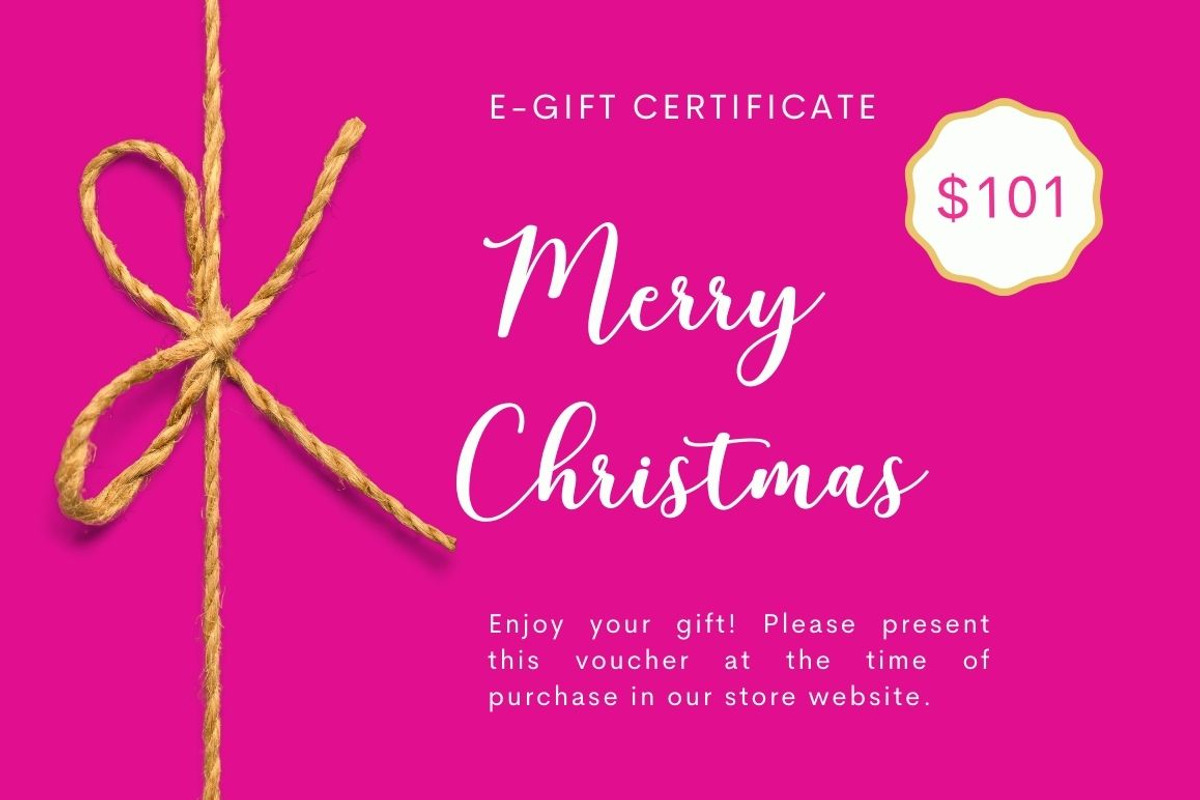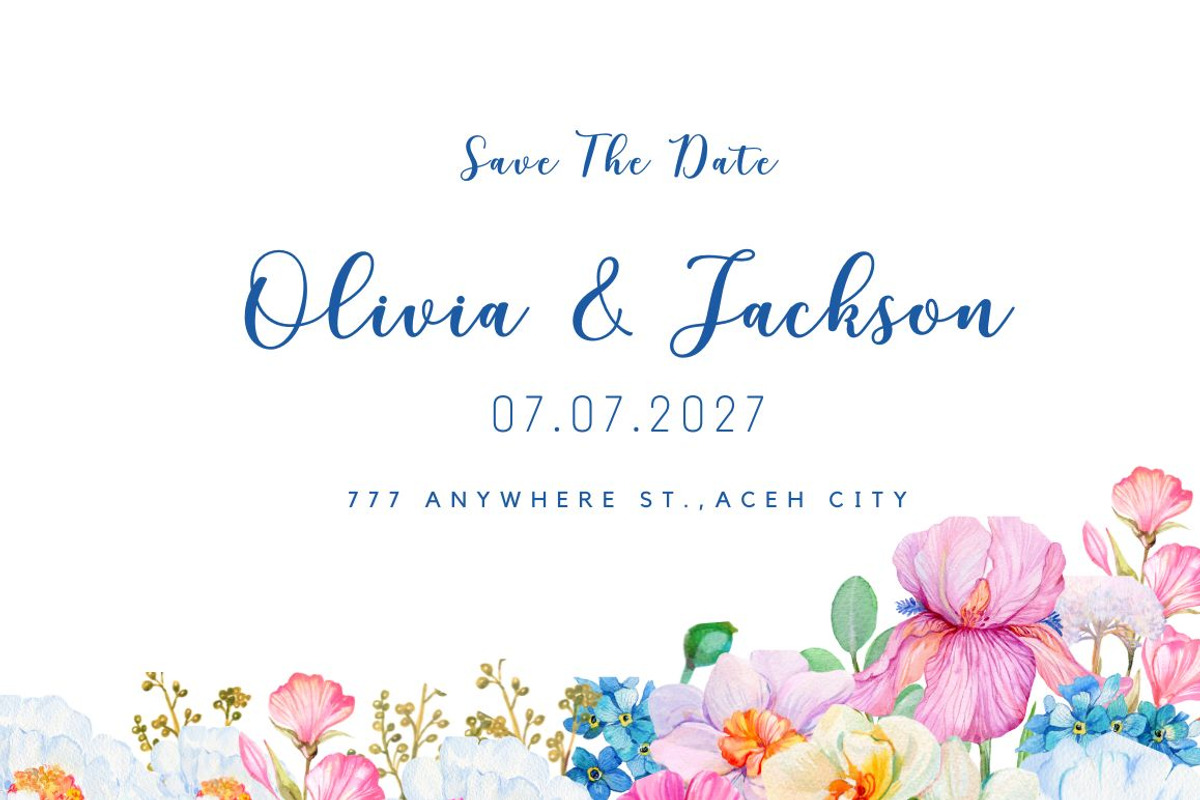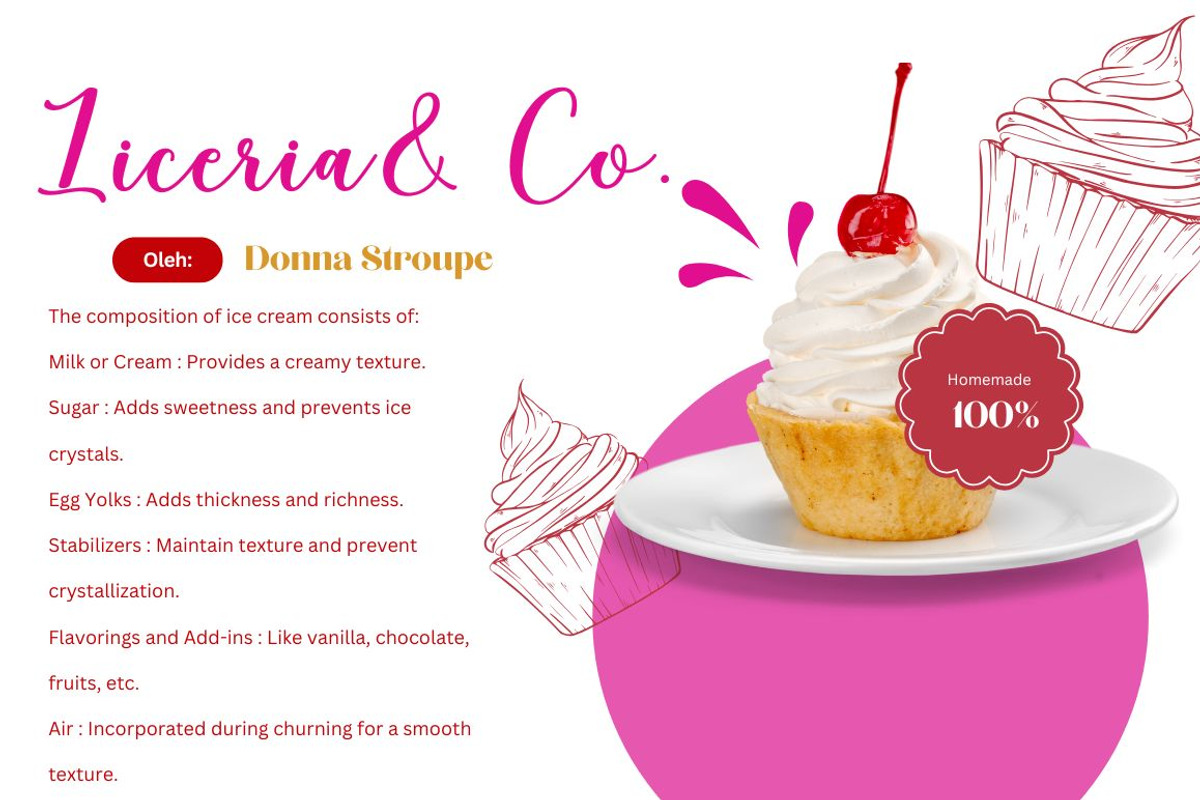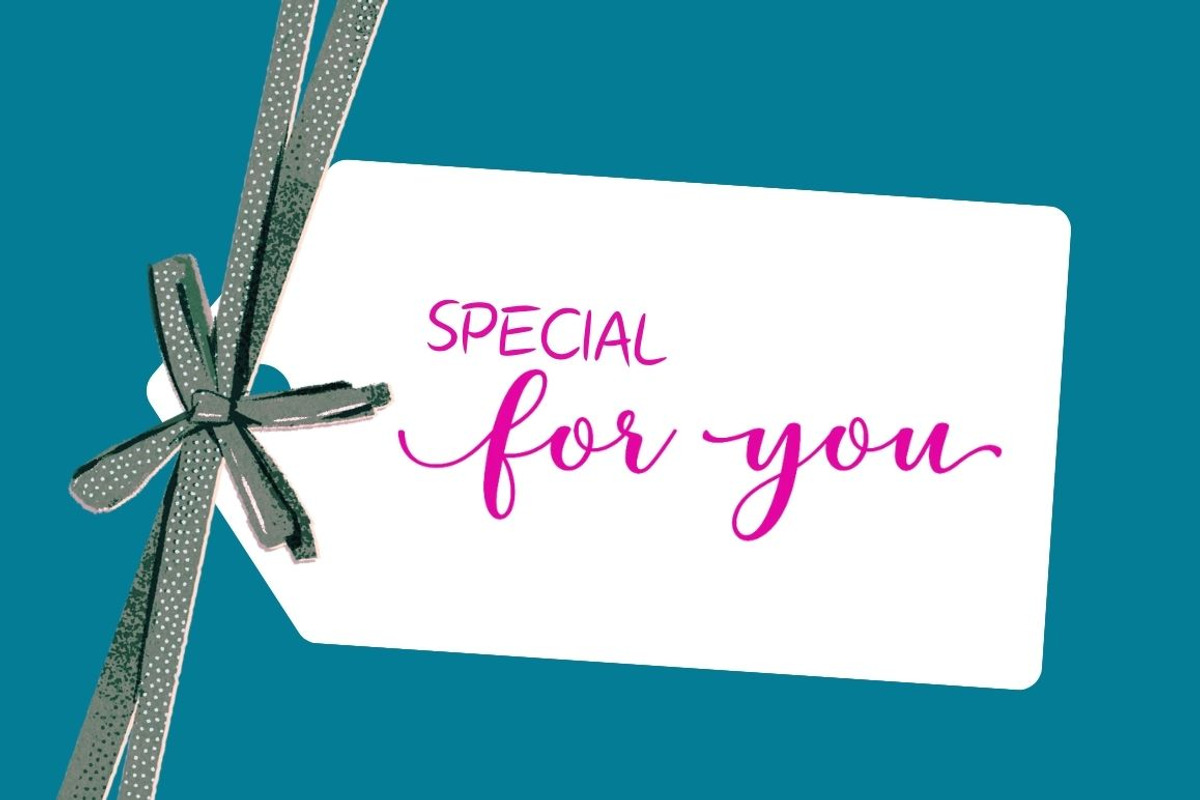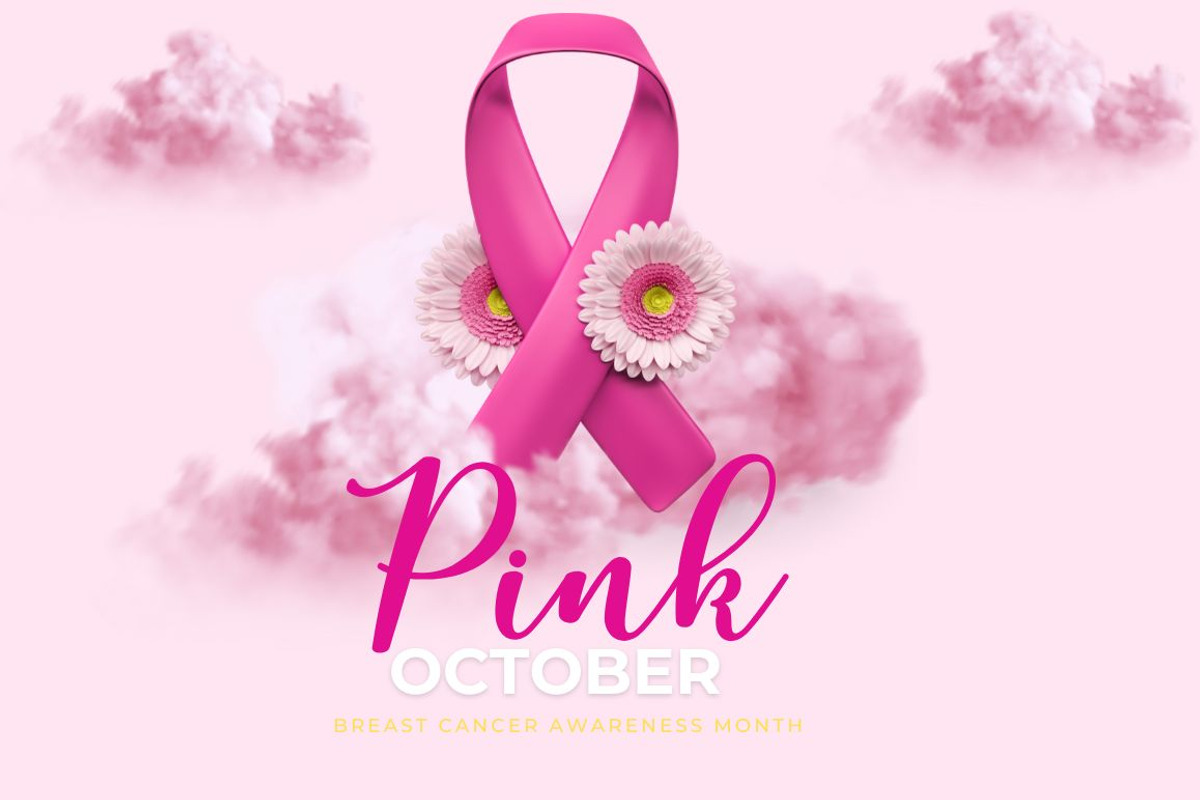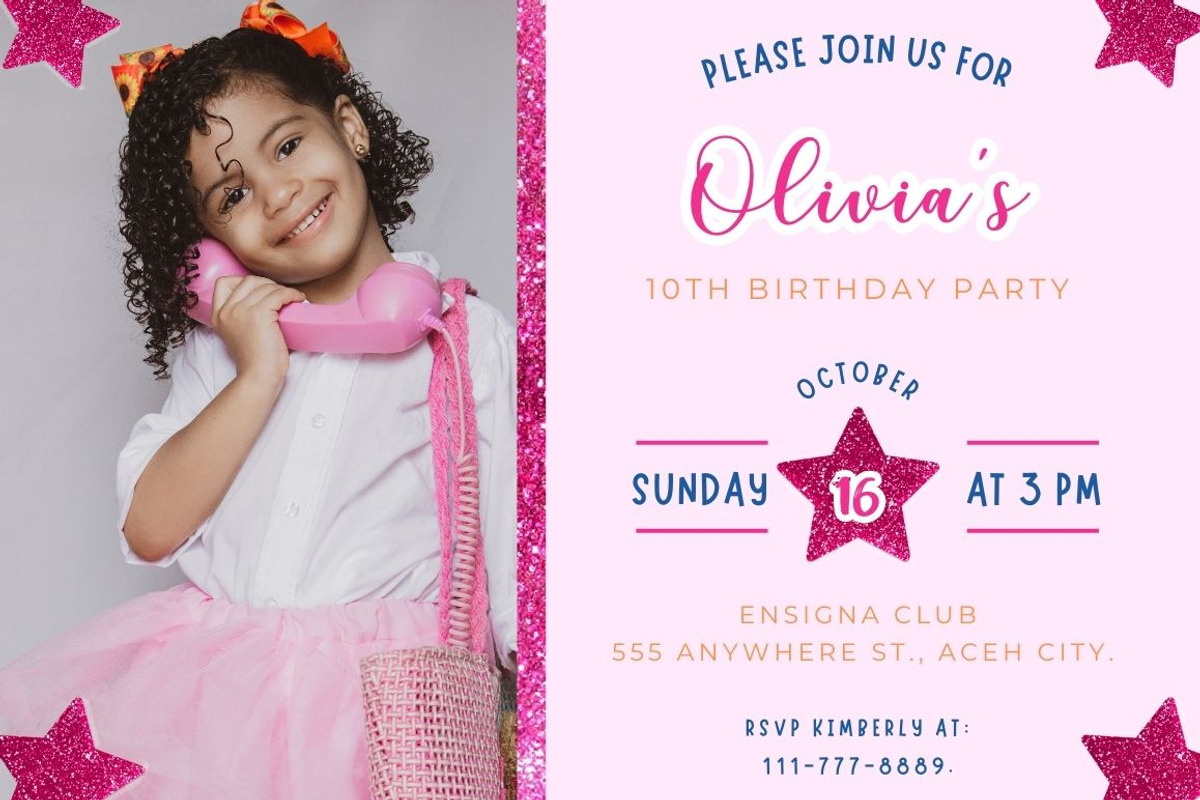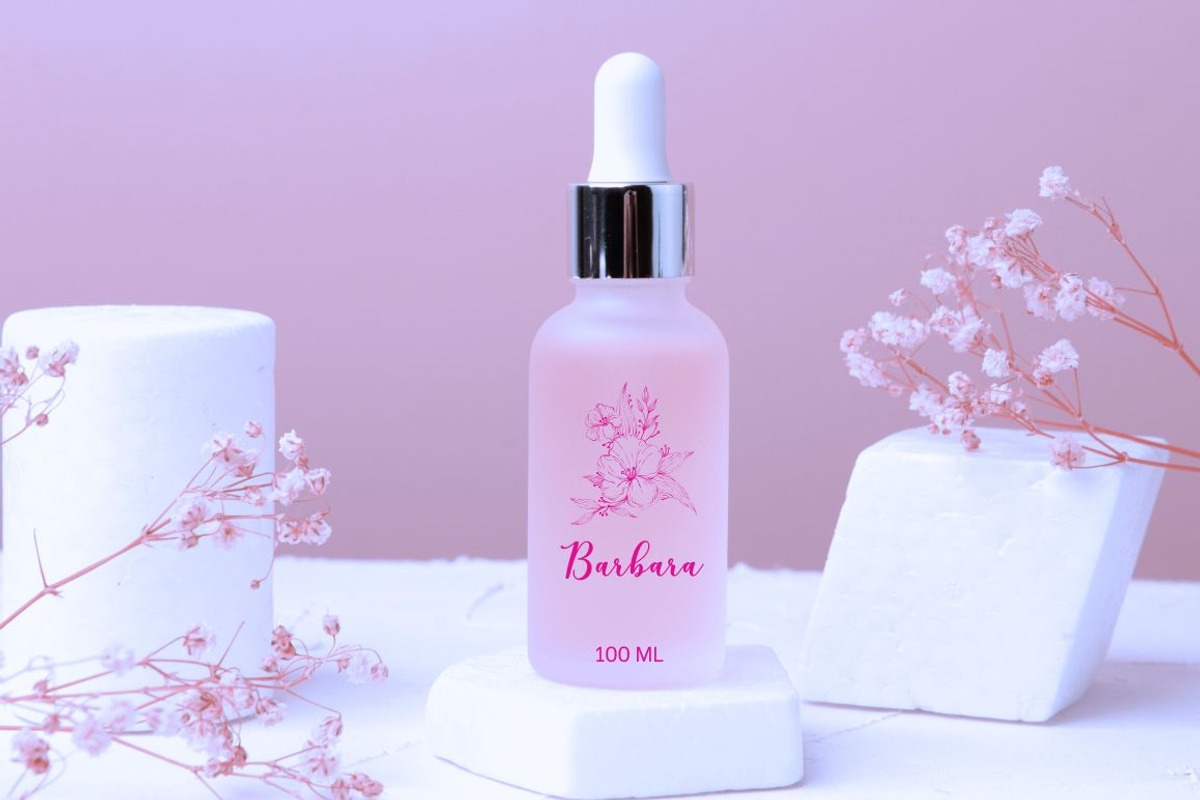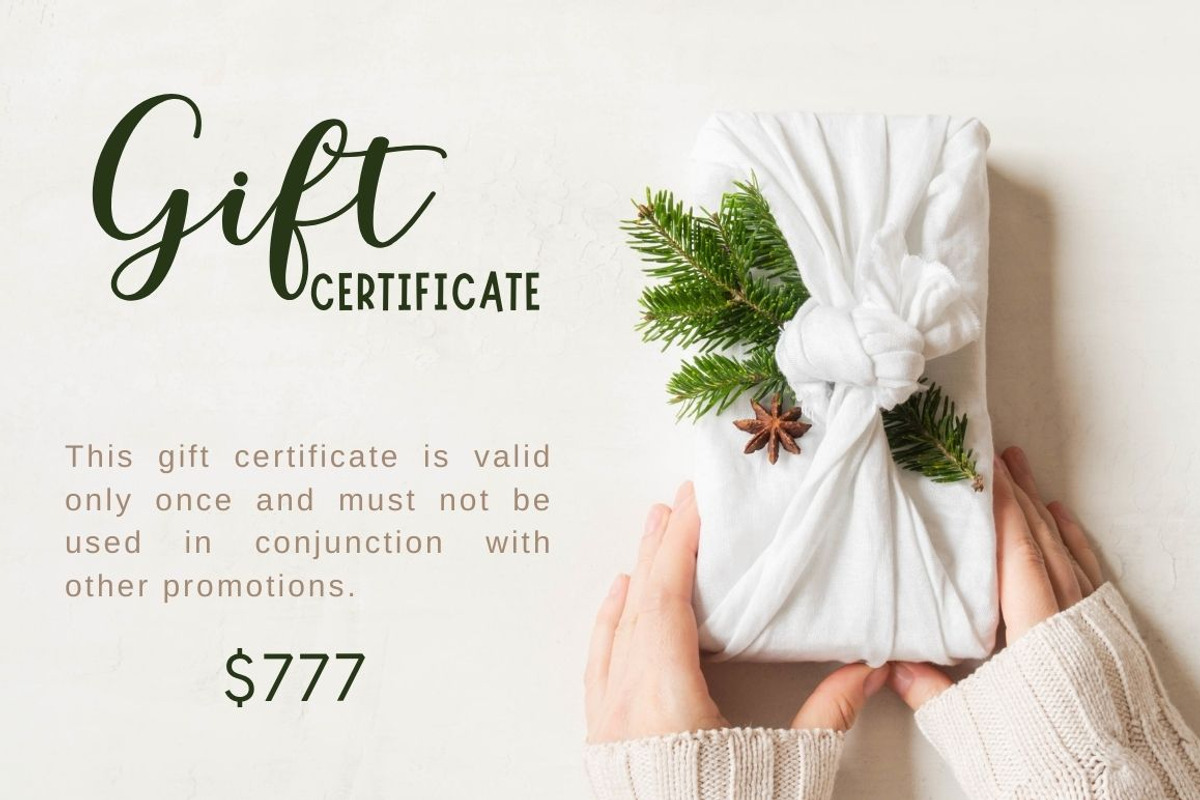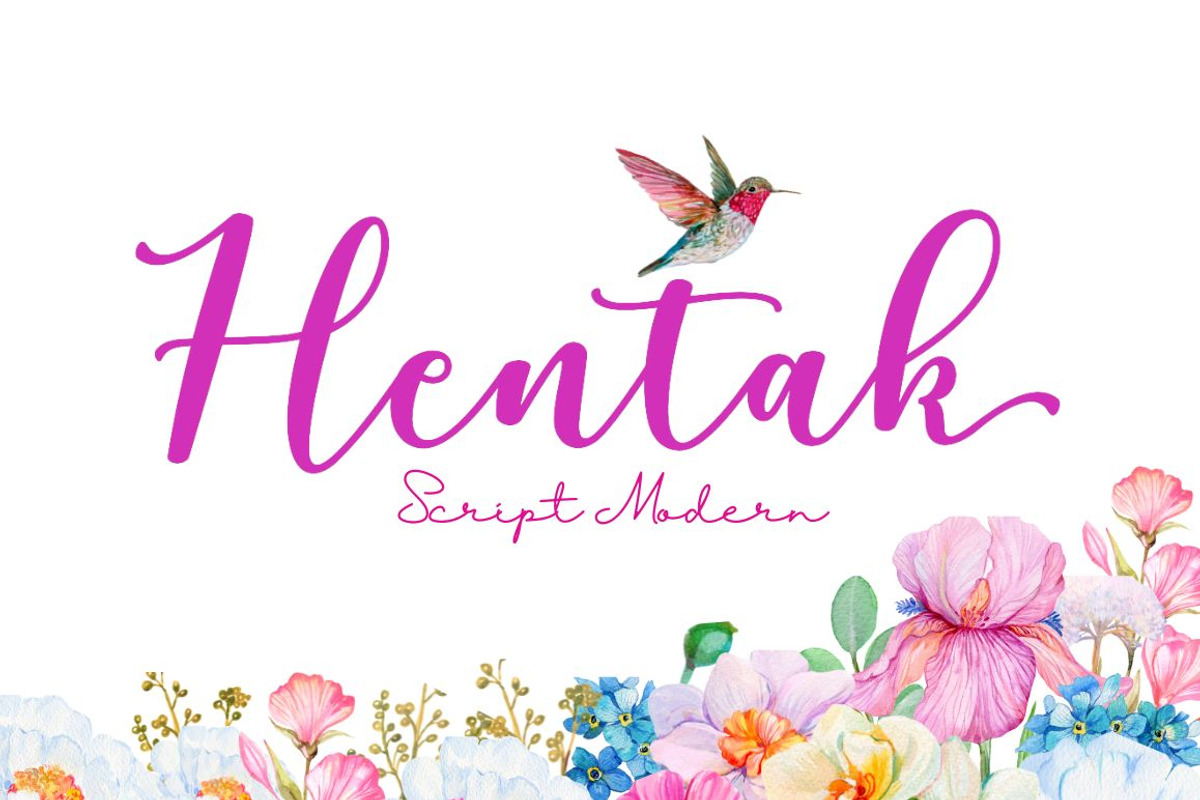
Hentak
The Hentak font falls under the Script category, which means it has an artistic, handwritten look with flowing and connected strokes. This font features elegant, interconnected characters with a smooth flow, giving it a stylish, feminine, and slightly vintage feel. The letterforms are often thick yet flexible, making it suitable for designs that require a personal and inviting aesthetic, such as wedding invitations, boutique logos, or branding elements.
Script fonts like Hentak are often used for their ability to add warmth and uniqueness to designs. Hentak, in particular, has a modern touch while retaining classic calligraphic qualities, making it elegant without appearing overly formal. Its letter shapes frequently involve dramatic curves and delicate ornamental details, which make it well-suited for decorative elements and text that emphasizes artistic flair.